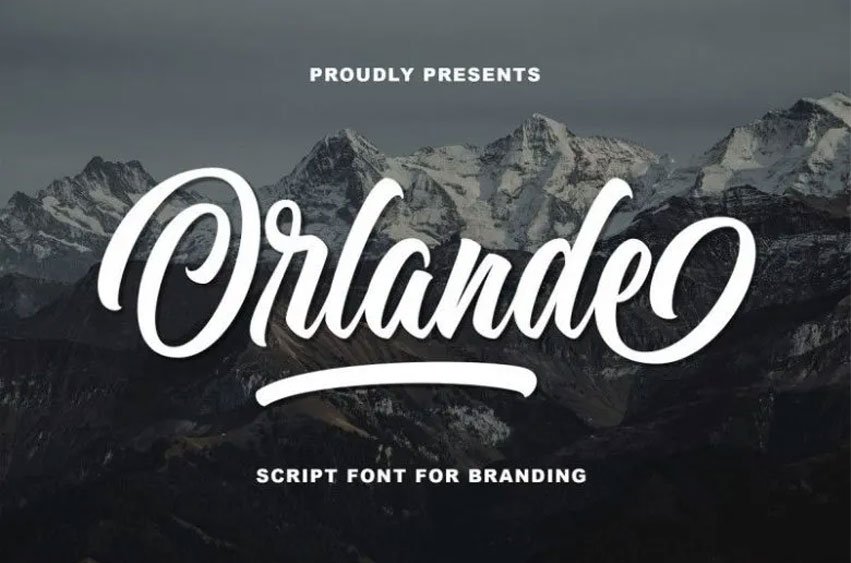
Orlande Script Font is a script font suitable for branding, designed by Blankids Studio. This is a bold feminine font to depict the confidence and comfort in every usage. As influenced by the urban script fonts with sharp and beautiful letters to create fonts that are modern, trendy and elegant.
It came with OpenType features such stylistic alternates, stylistic sets & ligatures good for logotype, poster, badge, book cover, t-shirt design, packaging and any more.